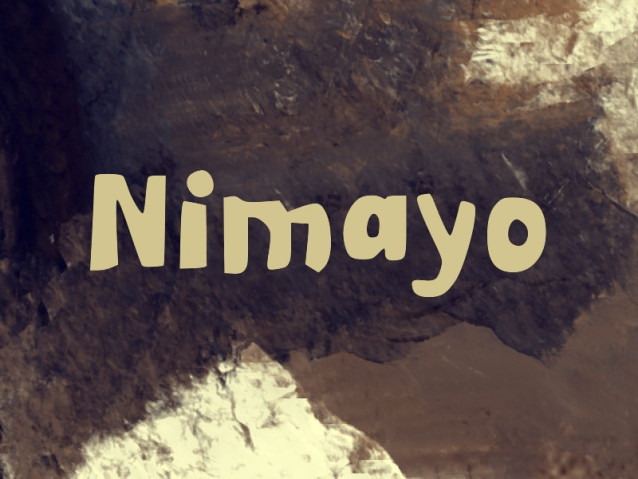
Nimayo Font
Nimayo Font is a simple and modern display font suitable for quotes, logos, headings, titles, and many more. Use it on any of your creative projects, and your designs will become outstanding!